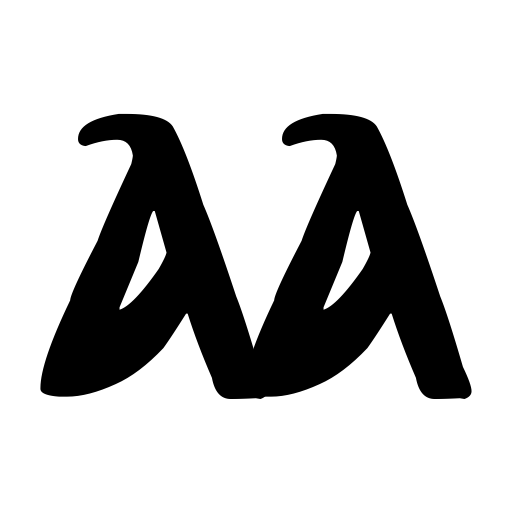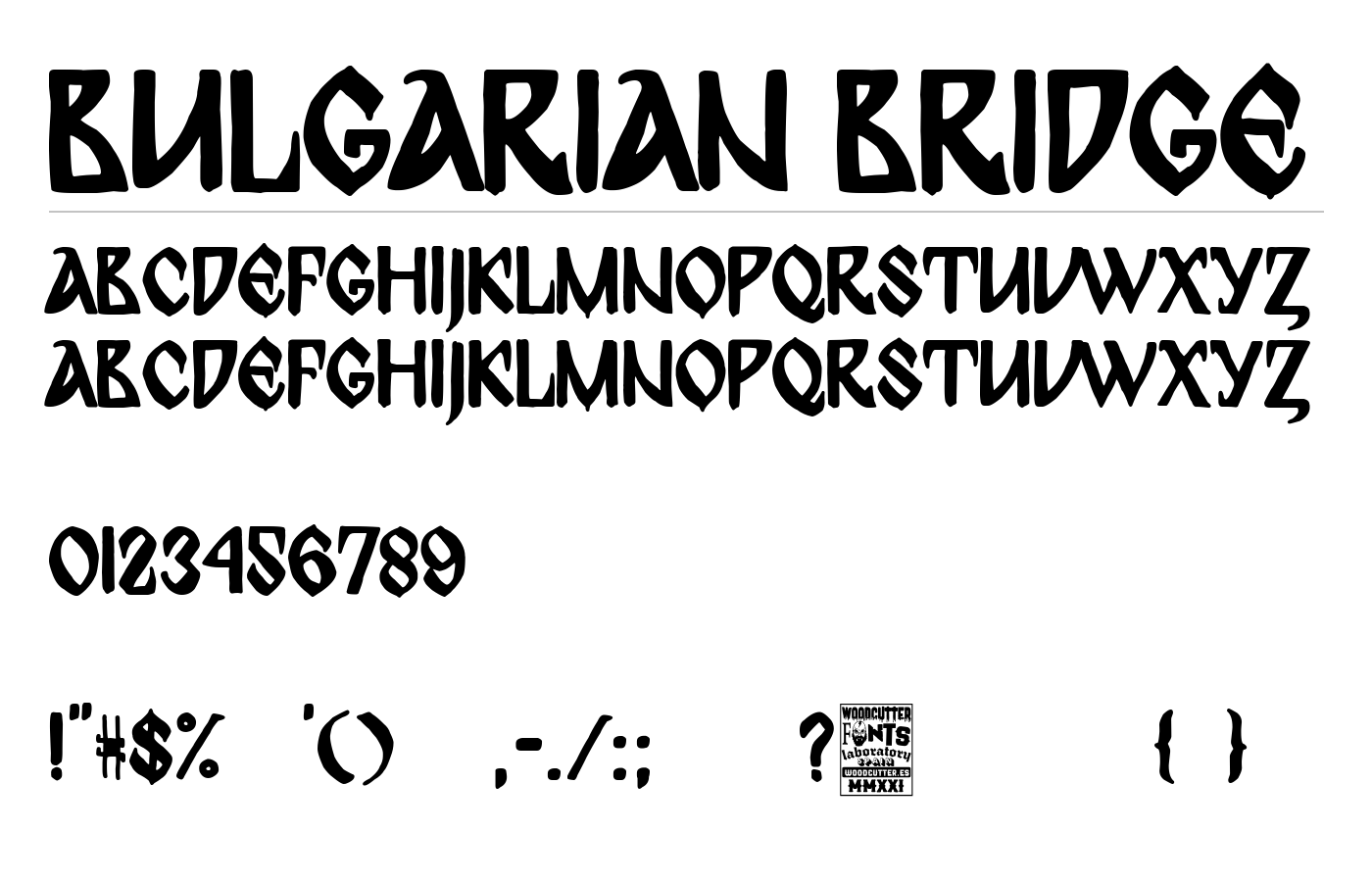
Bulgarian Bridge is a bold, expressive display font with a strong handwritten, slightly rustic character that evokes a handcrafted, folk-art feel. Its irregular shapes, sharp angles, and distinct stroke contrast make it ideal for creative projects that want to convey authenticity, tradition, and cultural roots, perfect for branding, posters, or packaging with a spirited, artisanal vibe.
Bulgarian Bridge Font
About Bulgarian Bridge Font